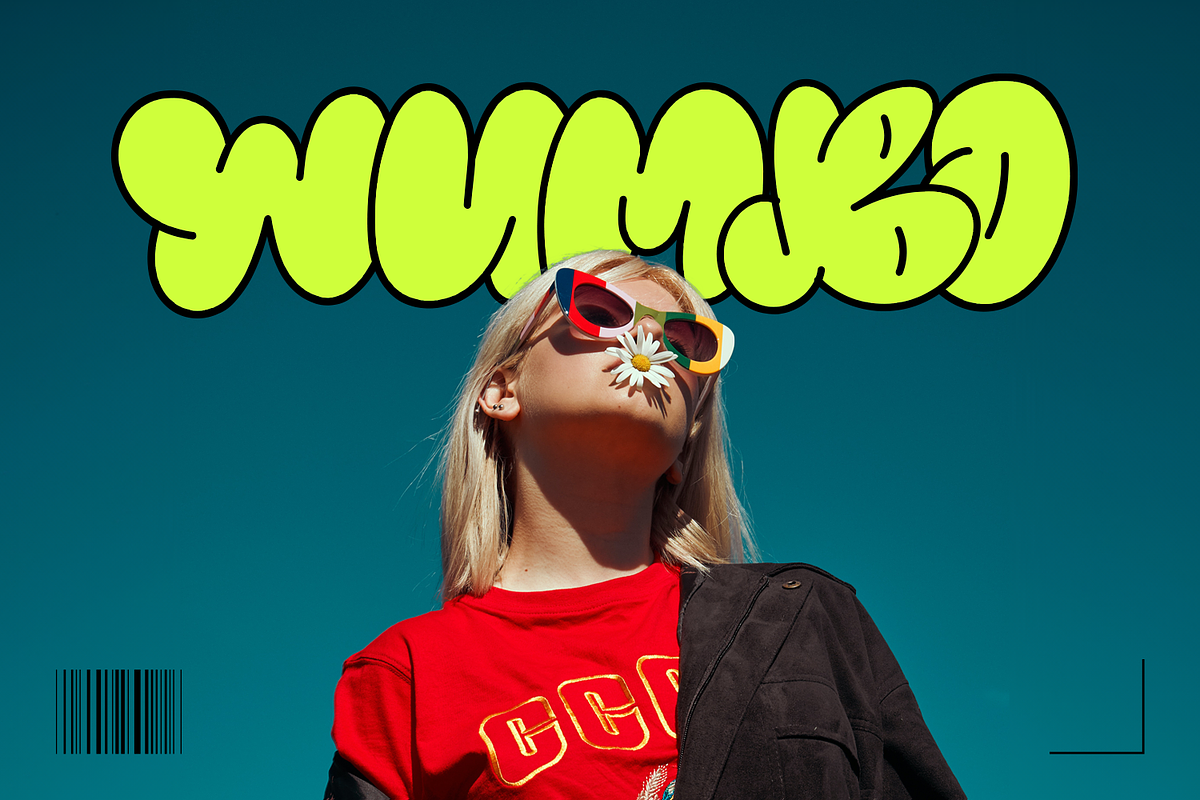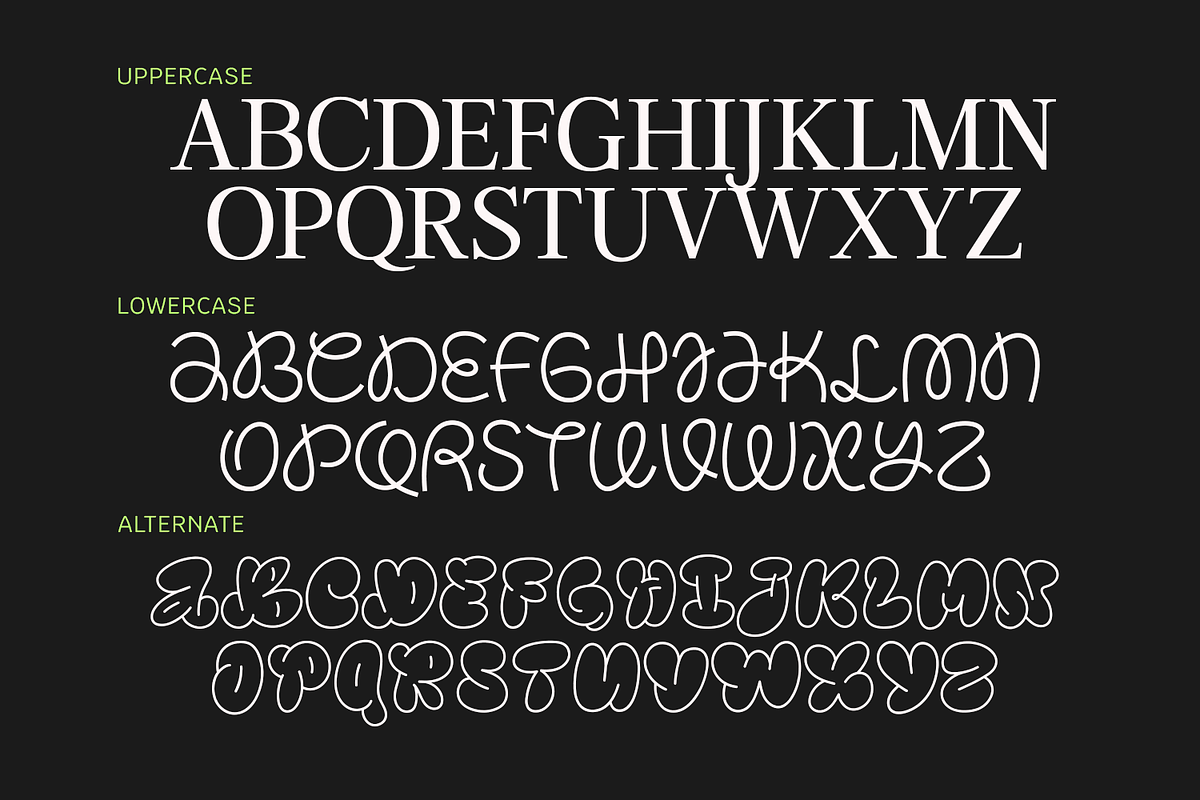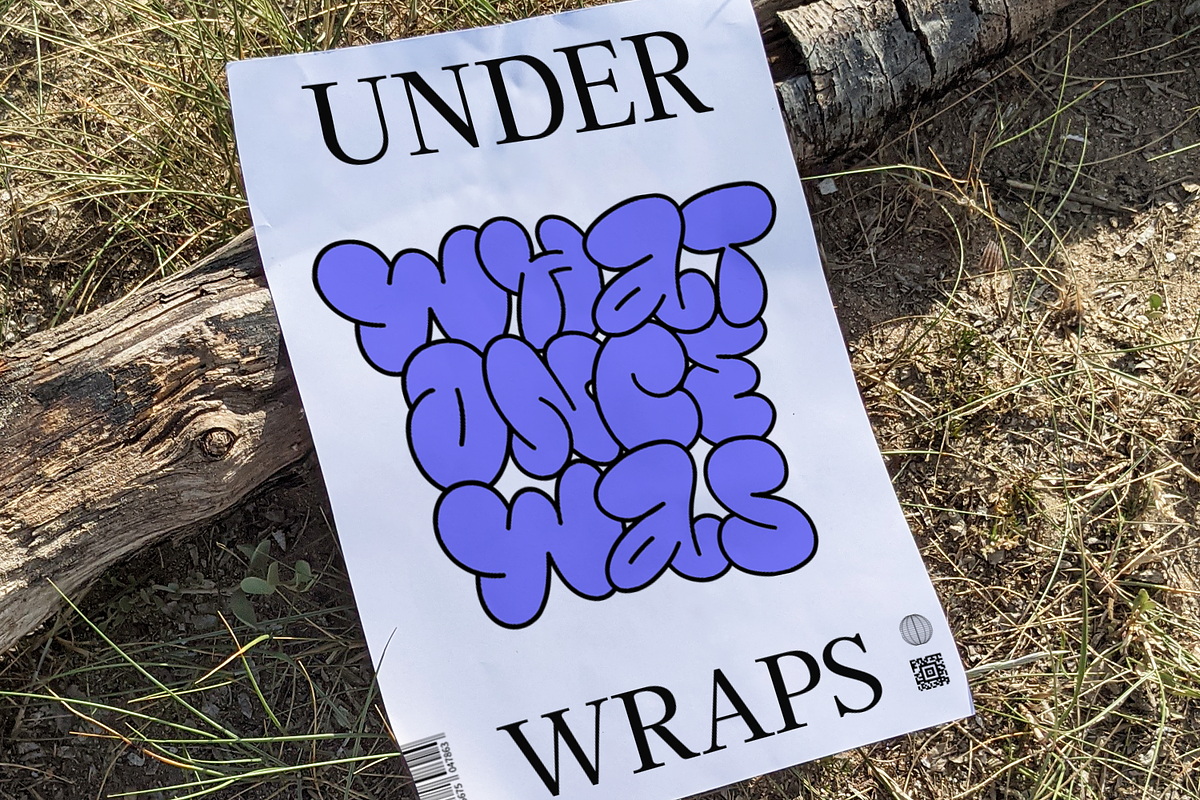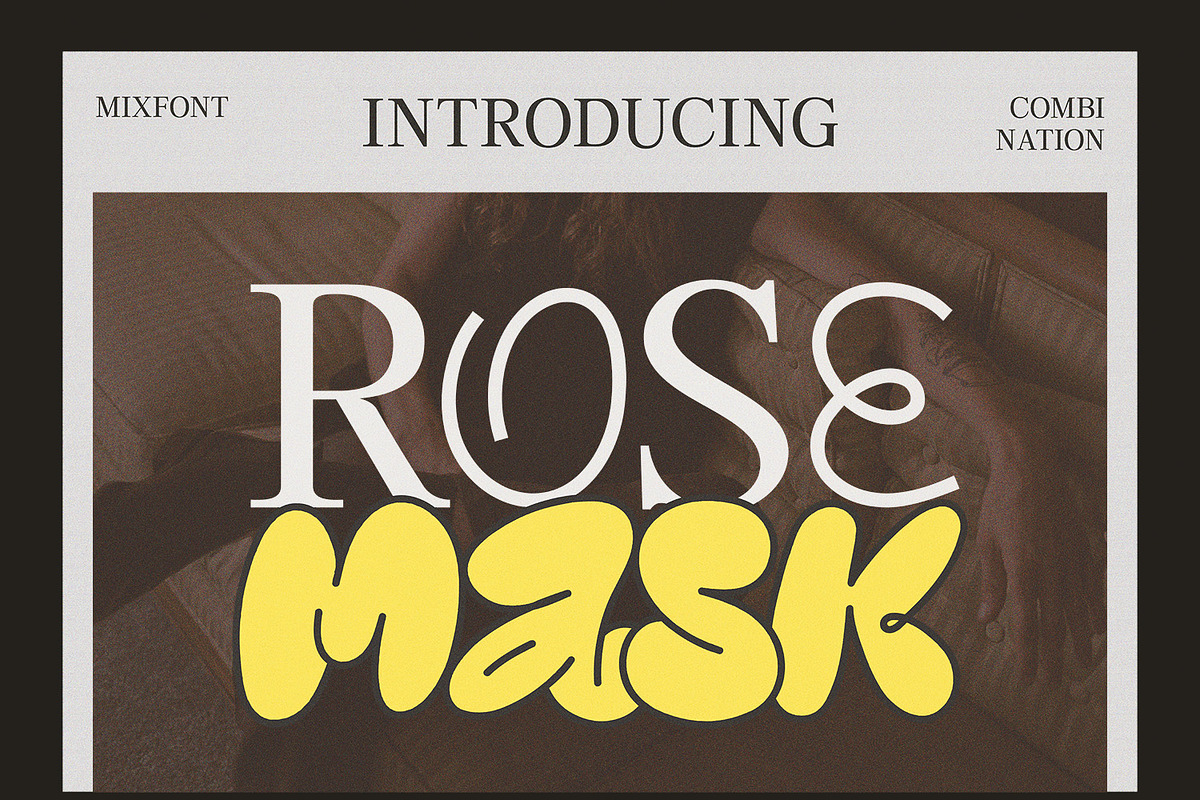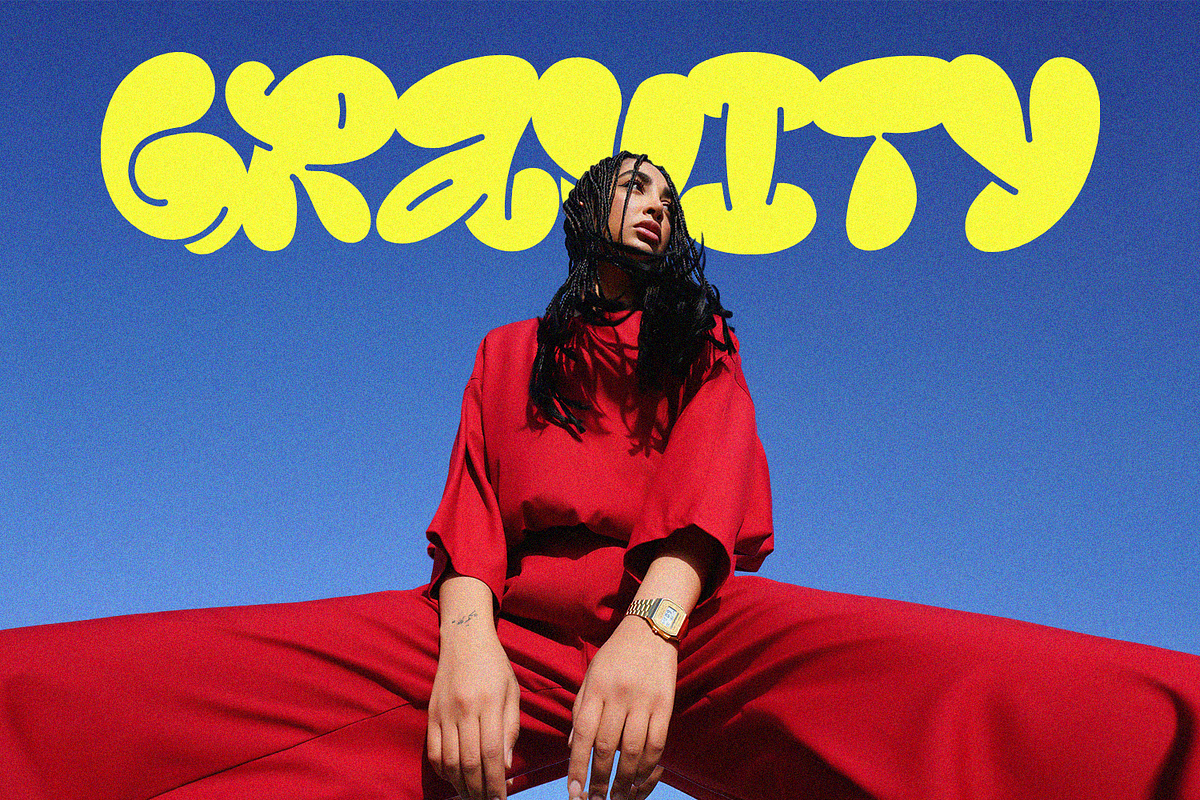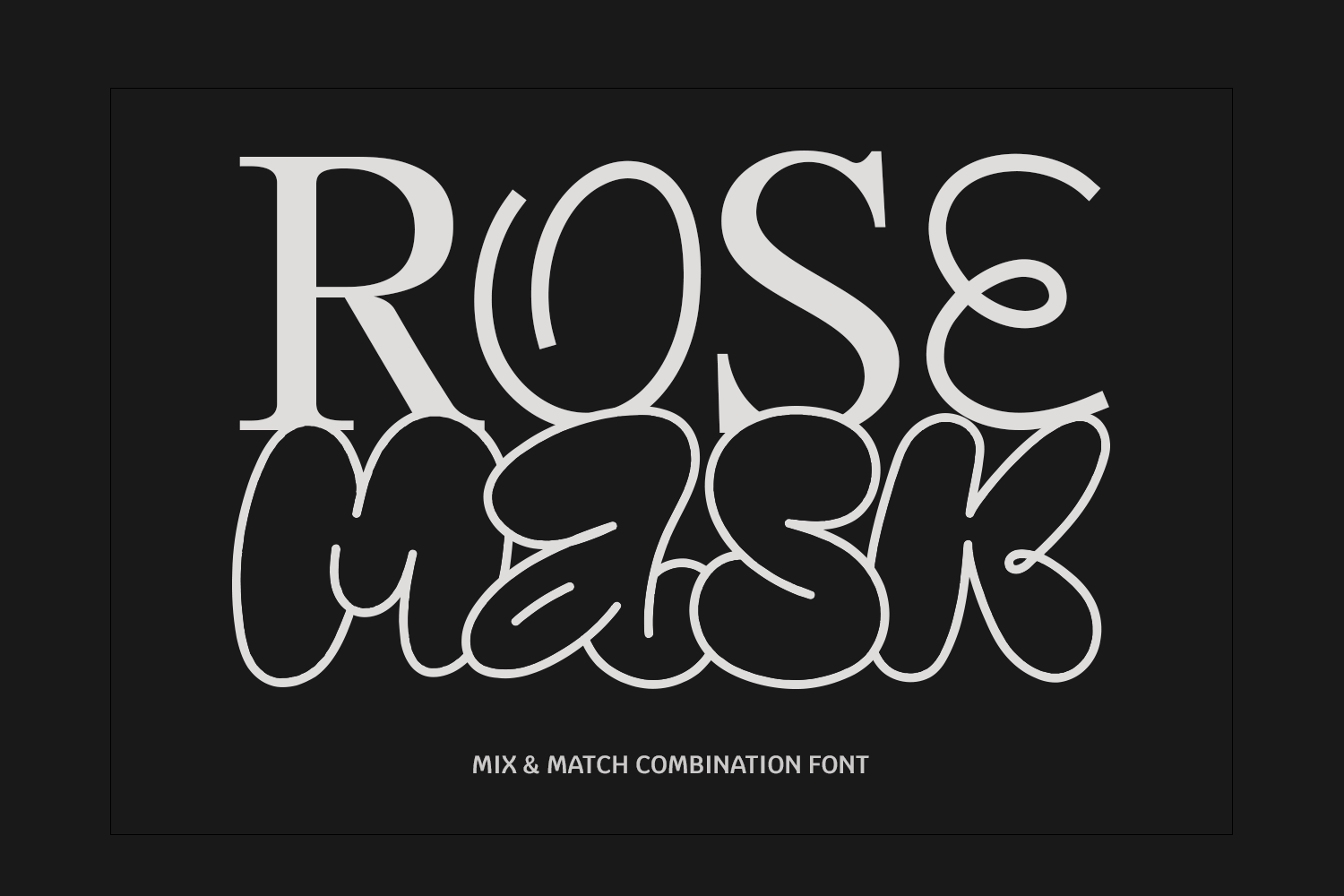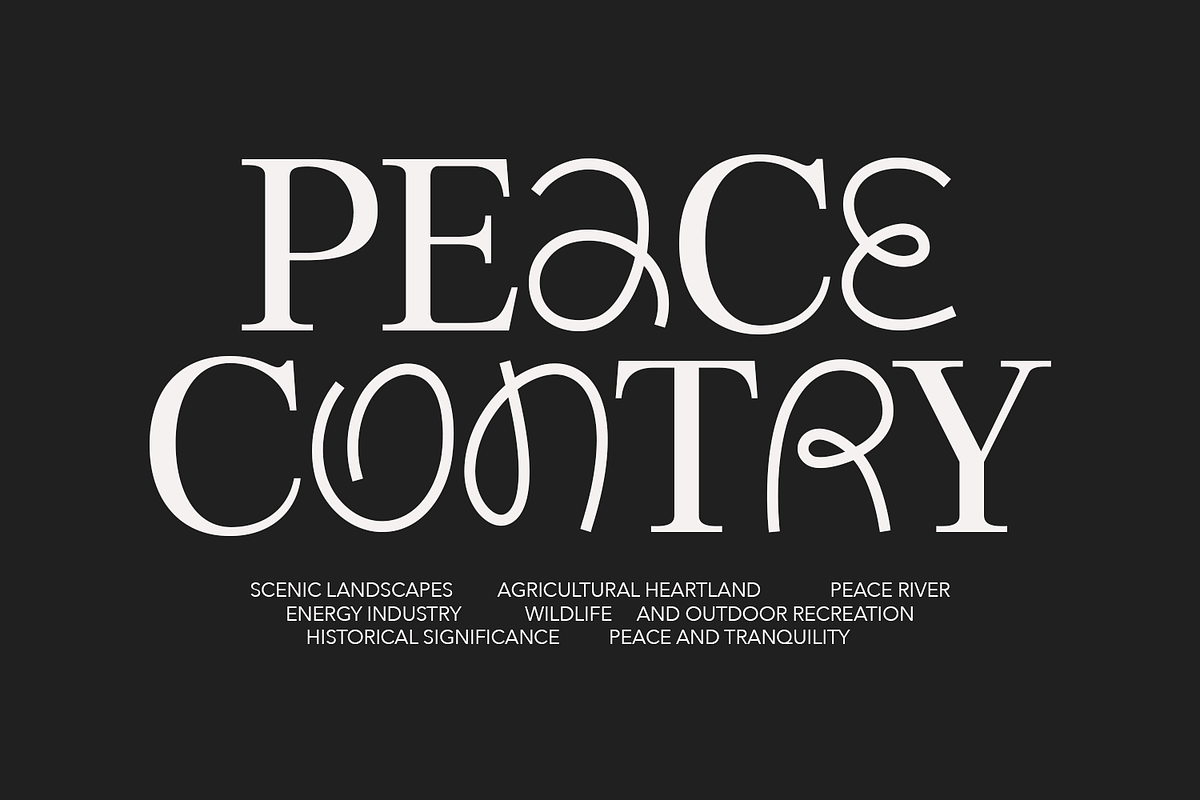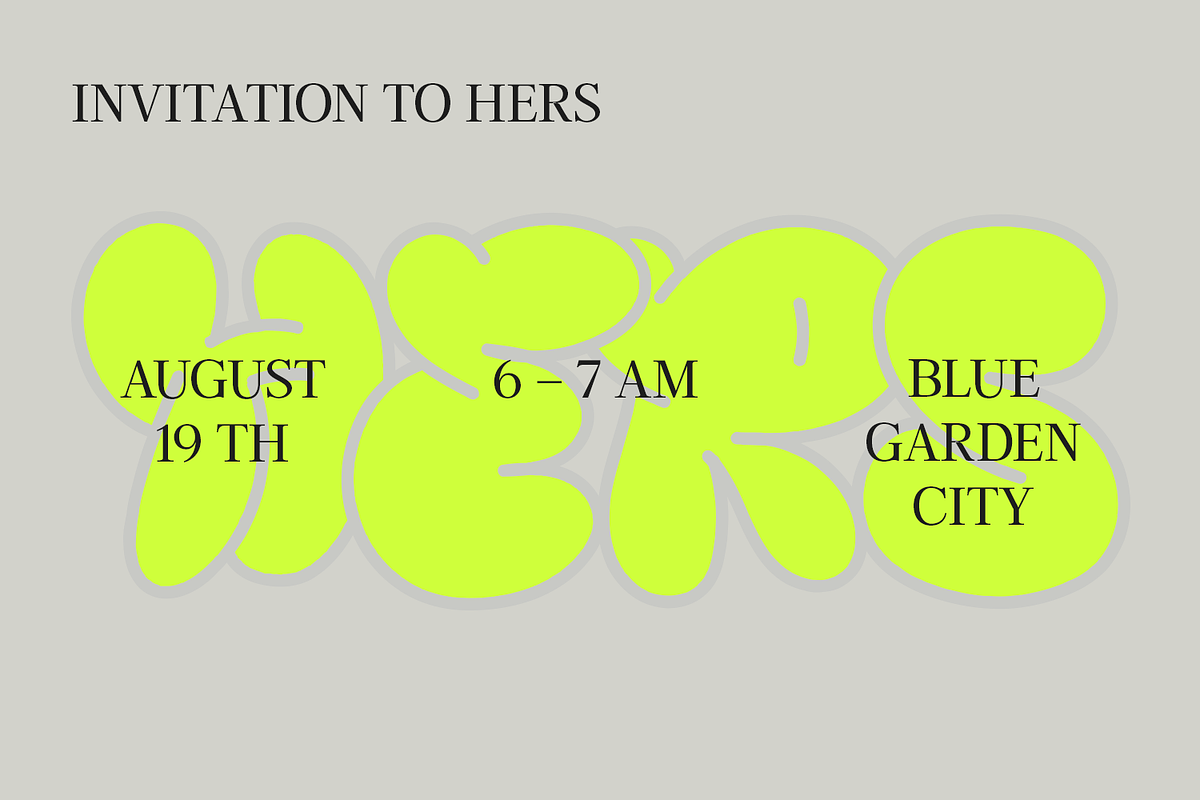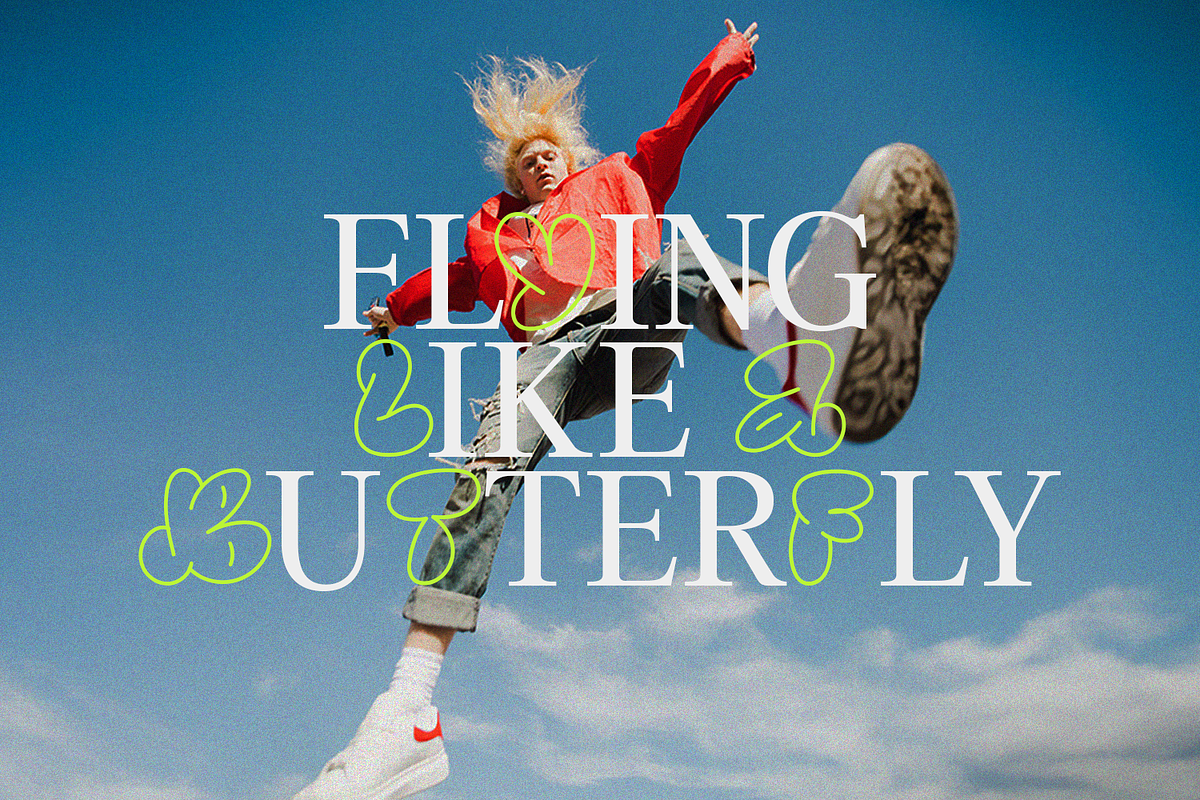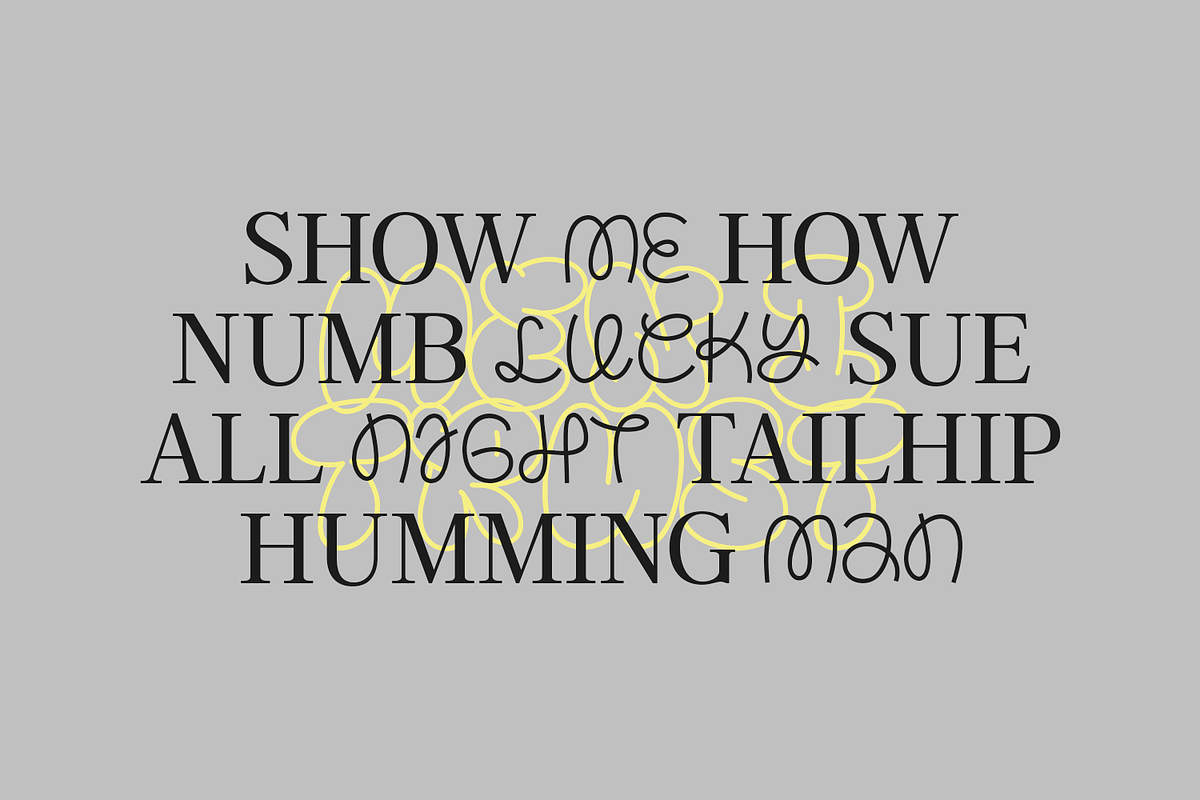
RoseMask - 3in1 Combination Font
RoseMask is a capvitating combination font with three distinct style that seamlessly complement each other. The uppercase style featured elegant serif for a timeless appeal, the lowercase style offers a playful monoline approach, and the alternates presented in a bubbly gravity font, infuse creativity and dynamism. Mix and macth this versalite font effortlessly transitions between elegance and playfulness, making it a must have for diverse design project, from branding to editorial layout.